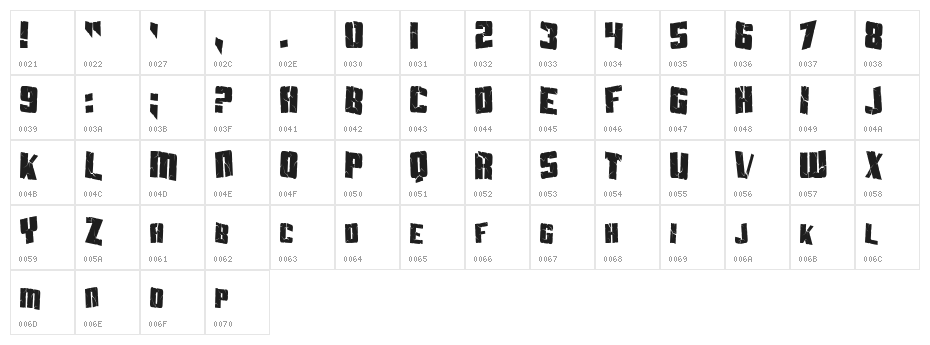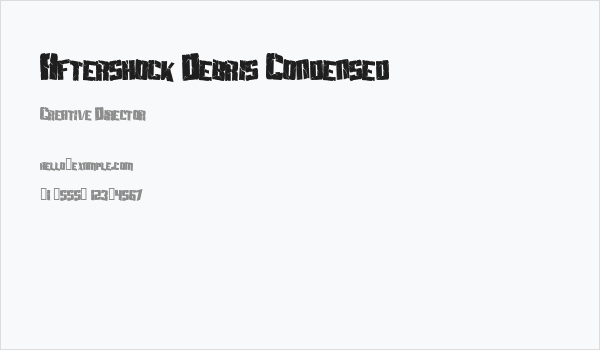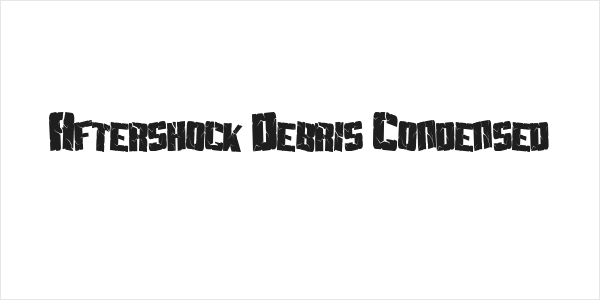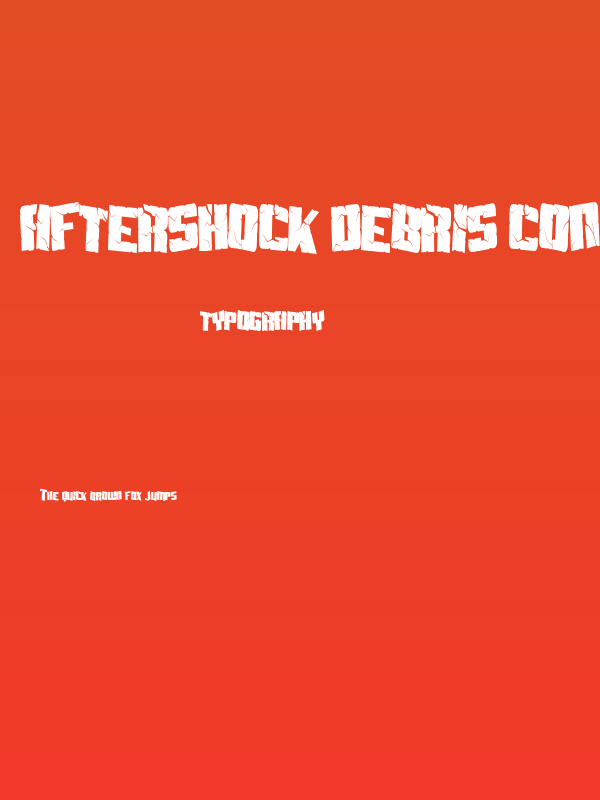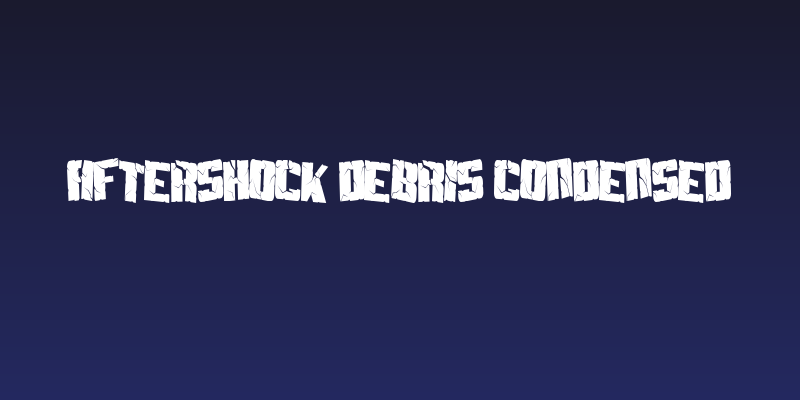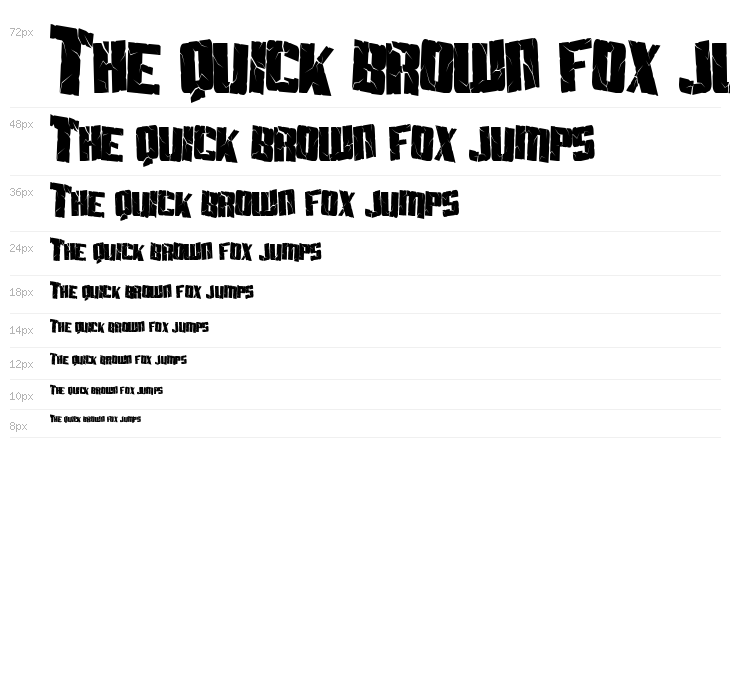
Aftershock Debris Condensed Font
Aftershock Debris Condensed Description
This font features a bold, fragmented design that mimics the appearance of shattered debris. Each character is constructed with jagged edges and irregular shapes, creating a dynamic and chaotic visual effect. The uppercase and lowercase letters maintain a consistent style, with numbers and special characters following the same fragmented theme. The overall appearance is rugged and impactful, making it ideal for designs that require a strong, attention-grabbing aesthetic. The condensed width of the characters allows for efficient use of space while maintaining legibility.
| Proposed Projects | Ideal for use in posters, album covers, video game graphics, and any project needing a dramatic, edgy look. |